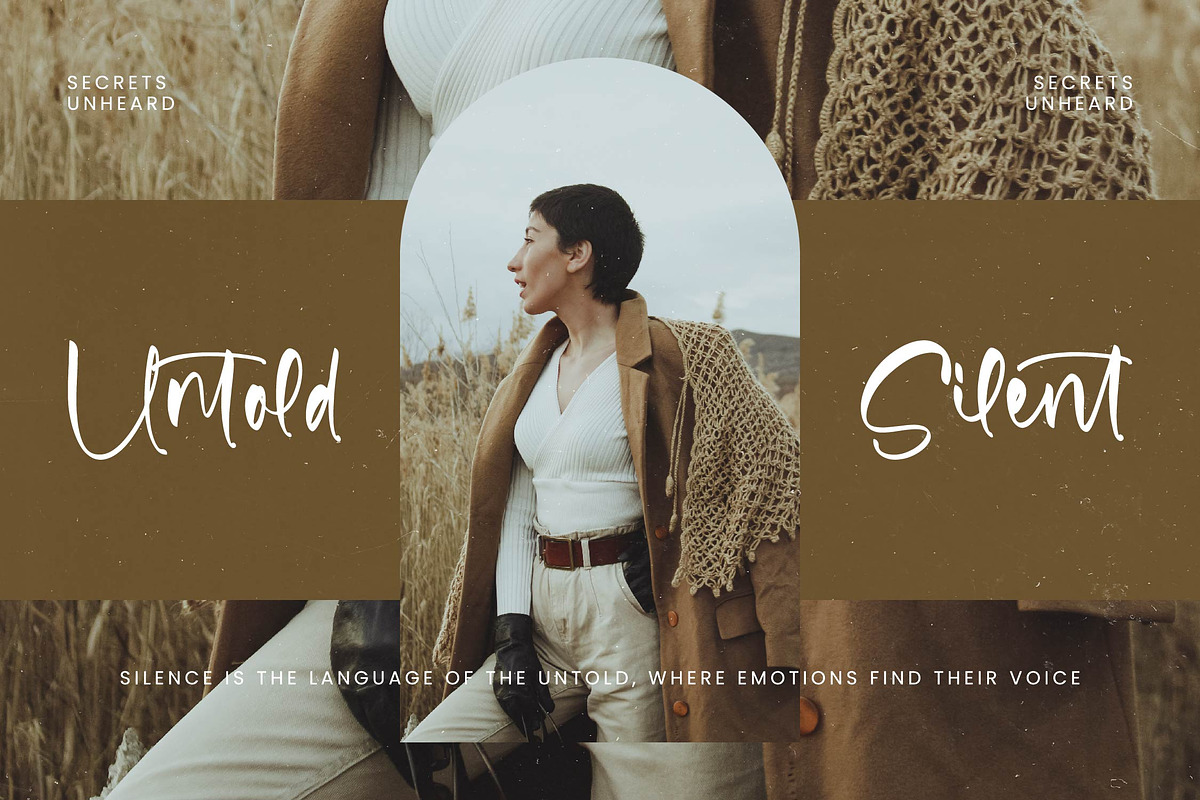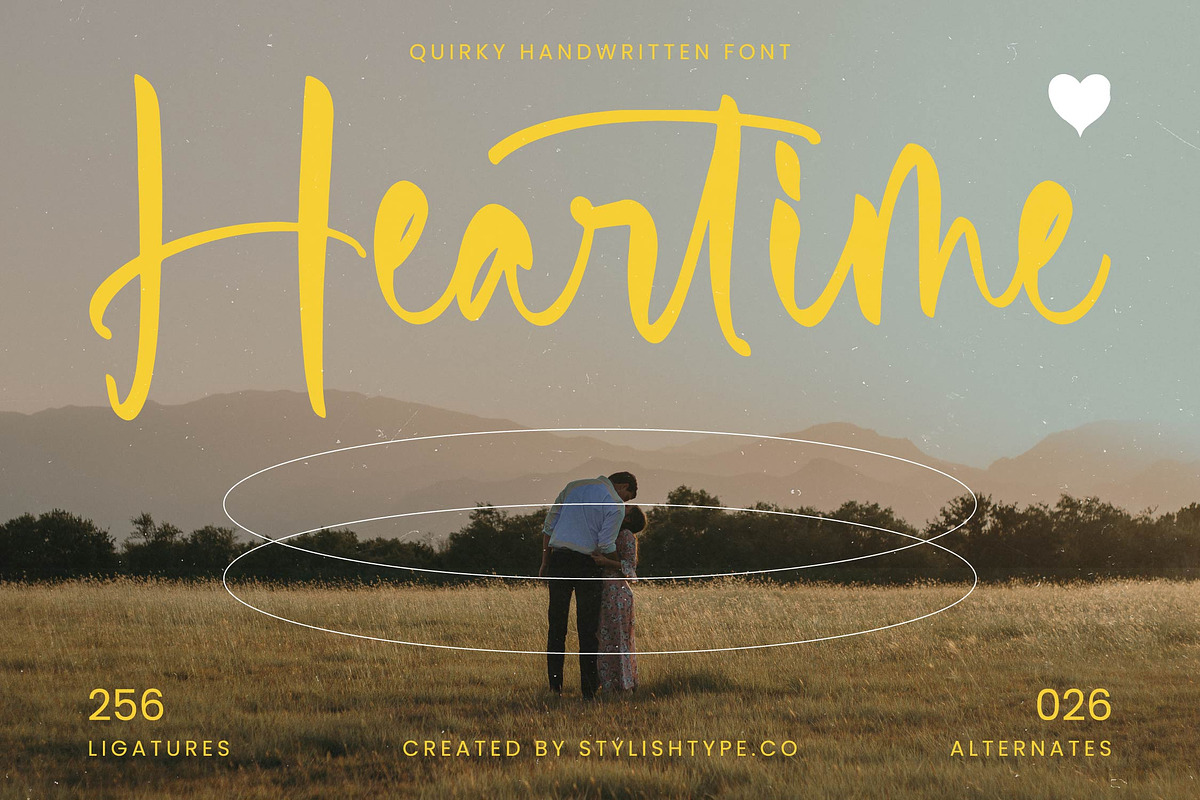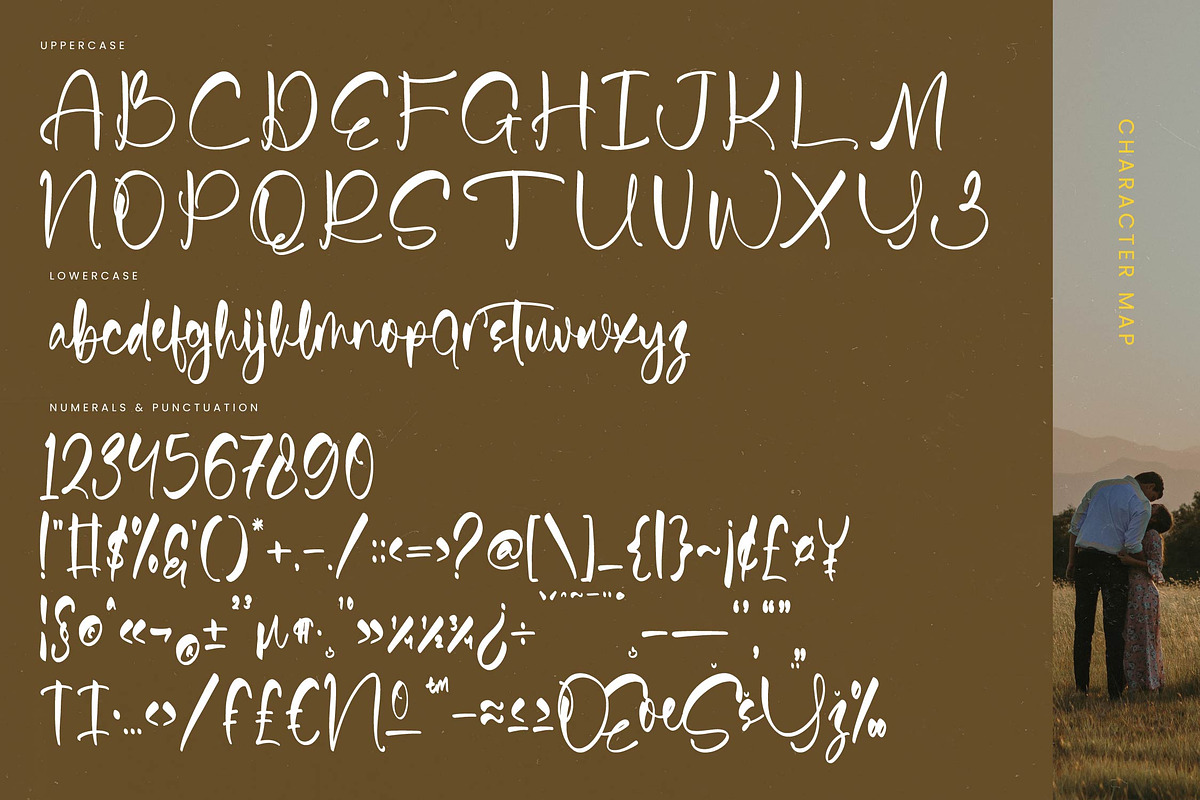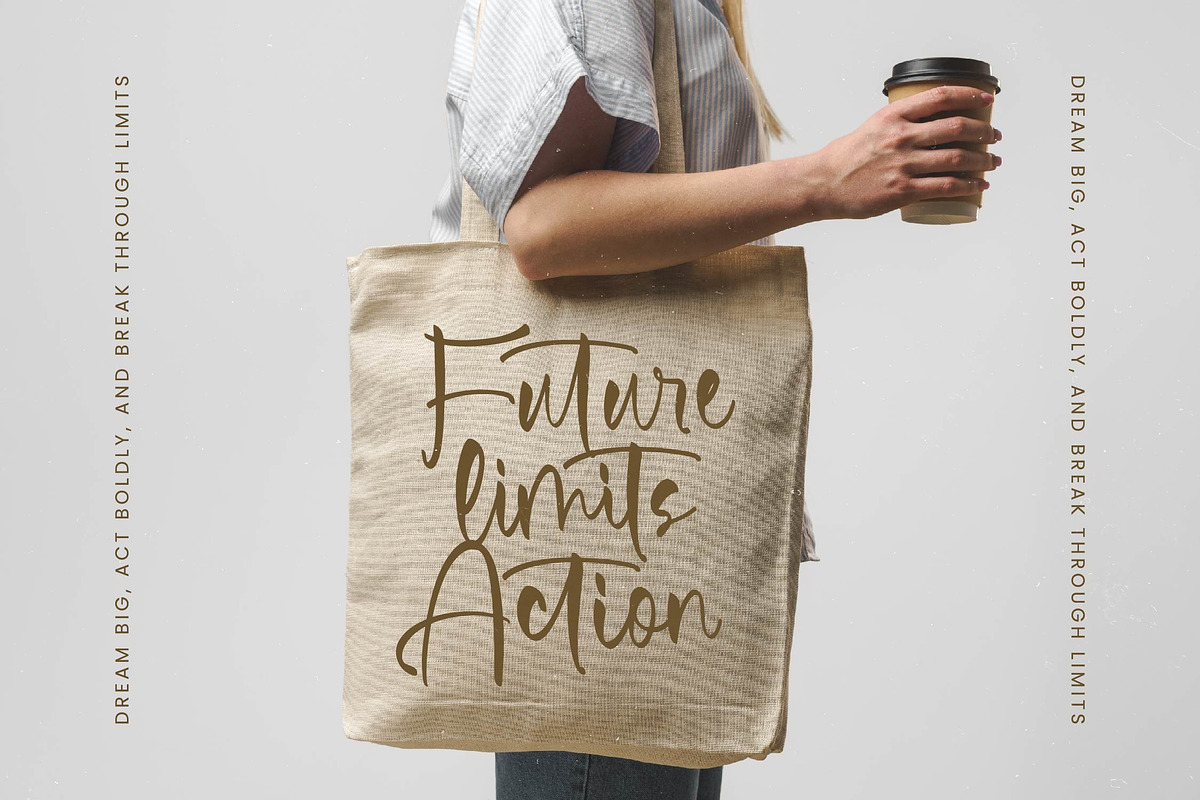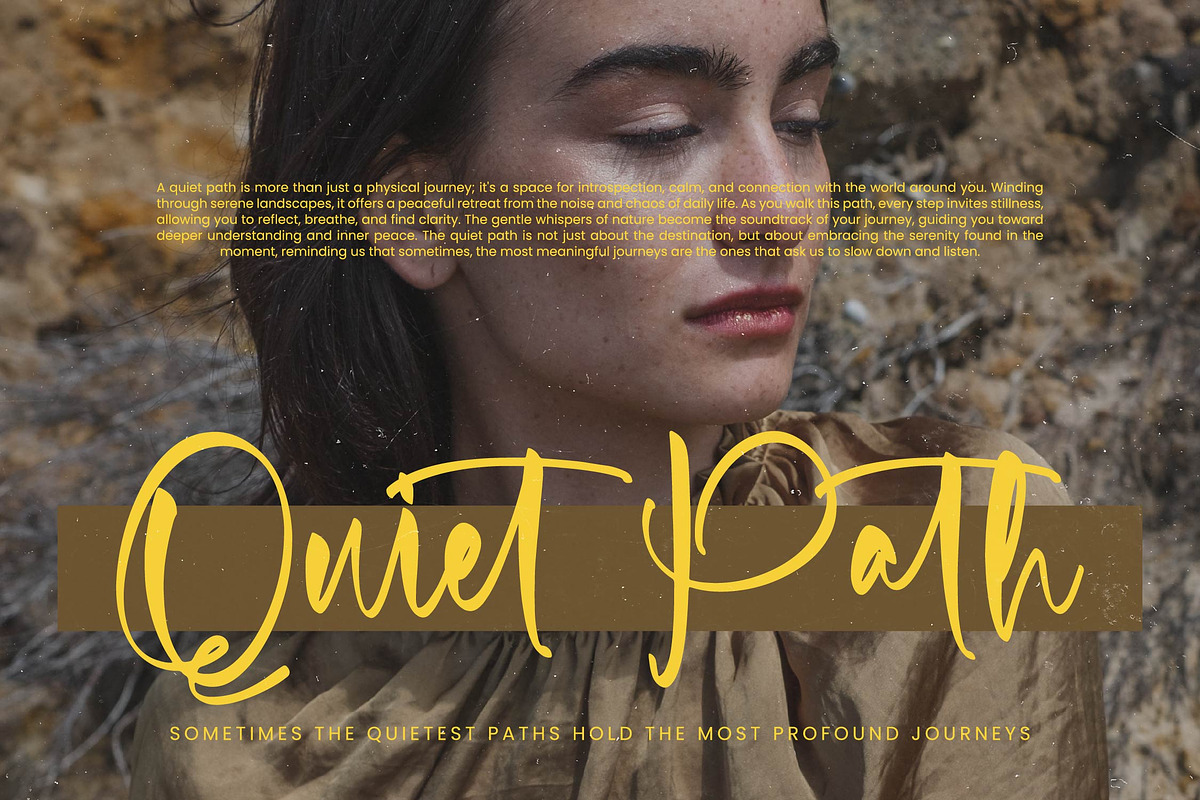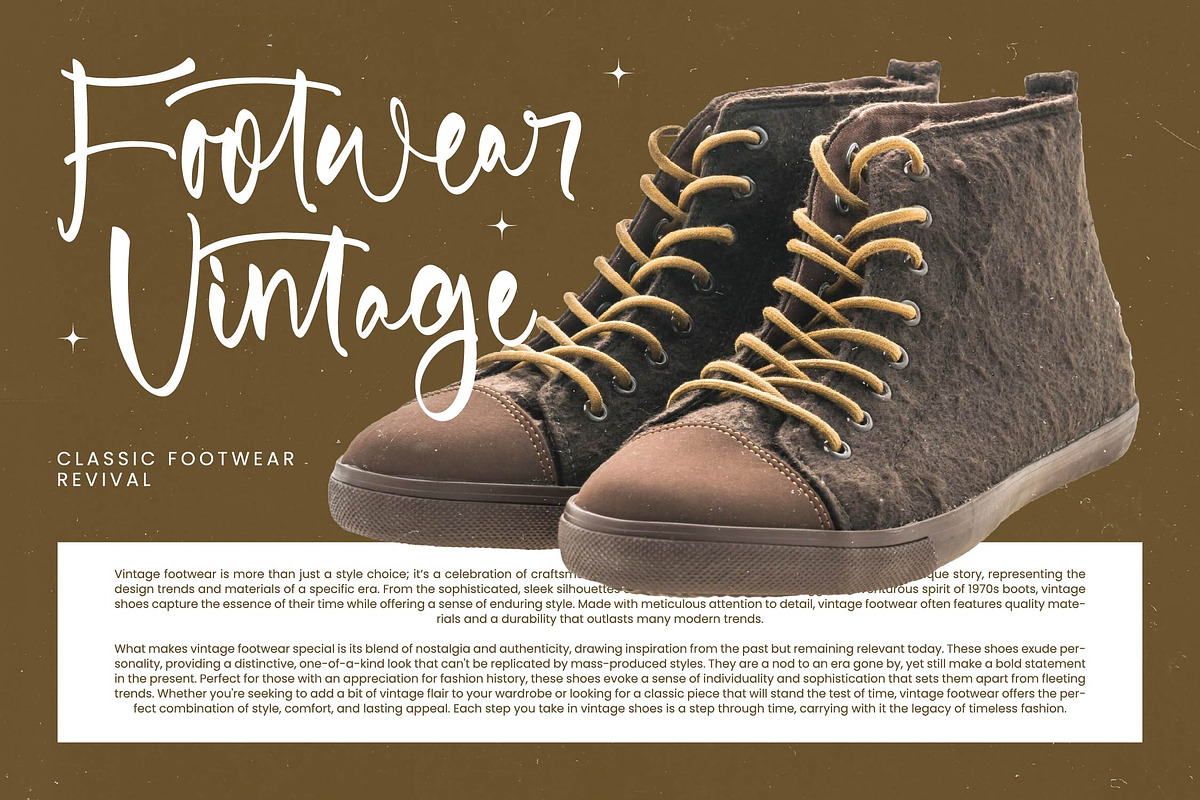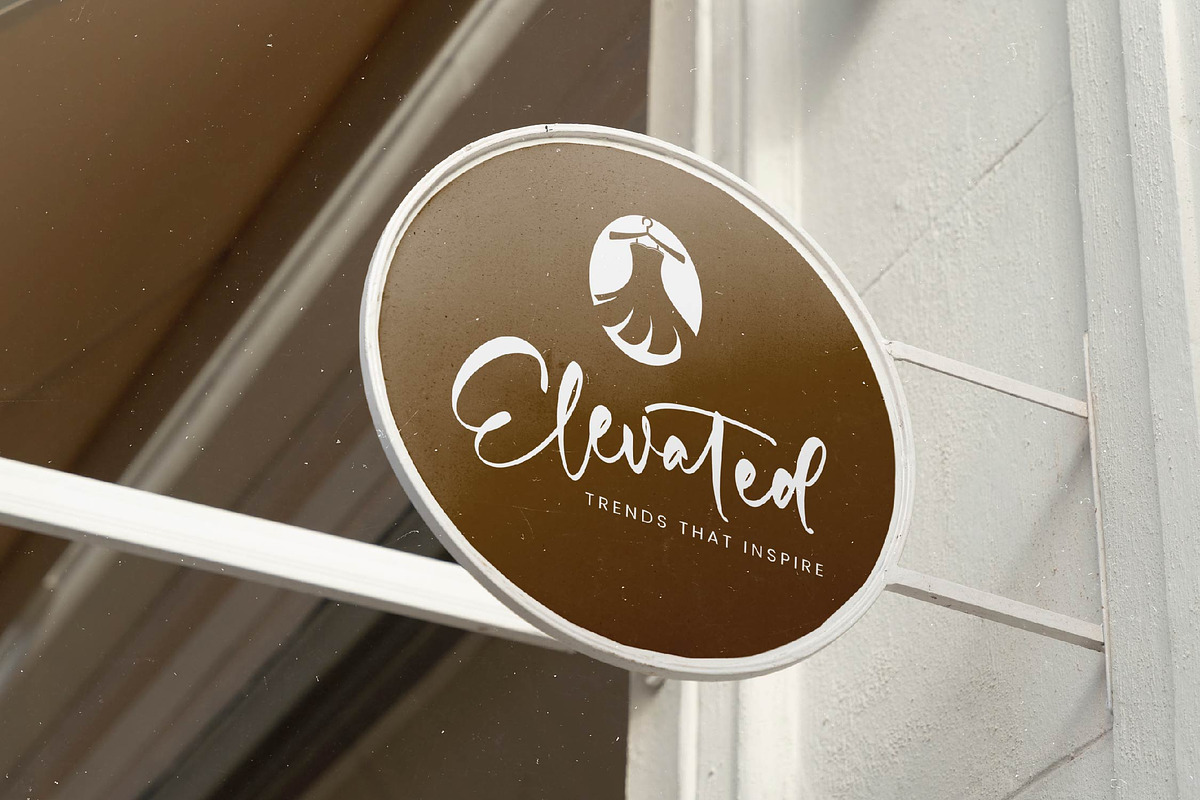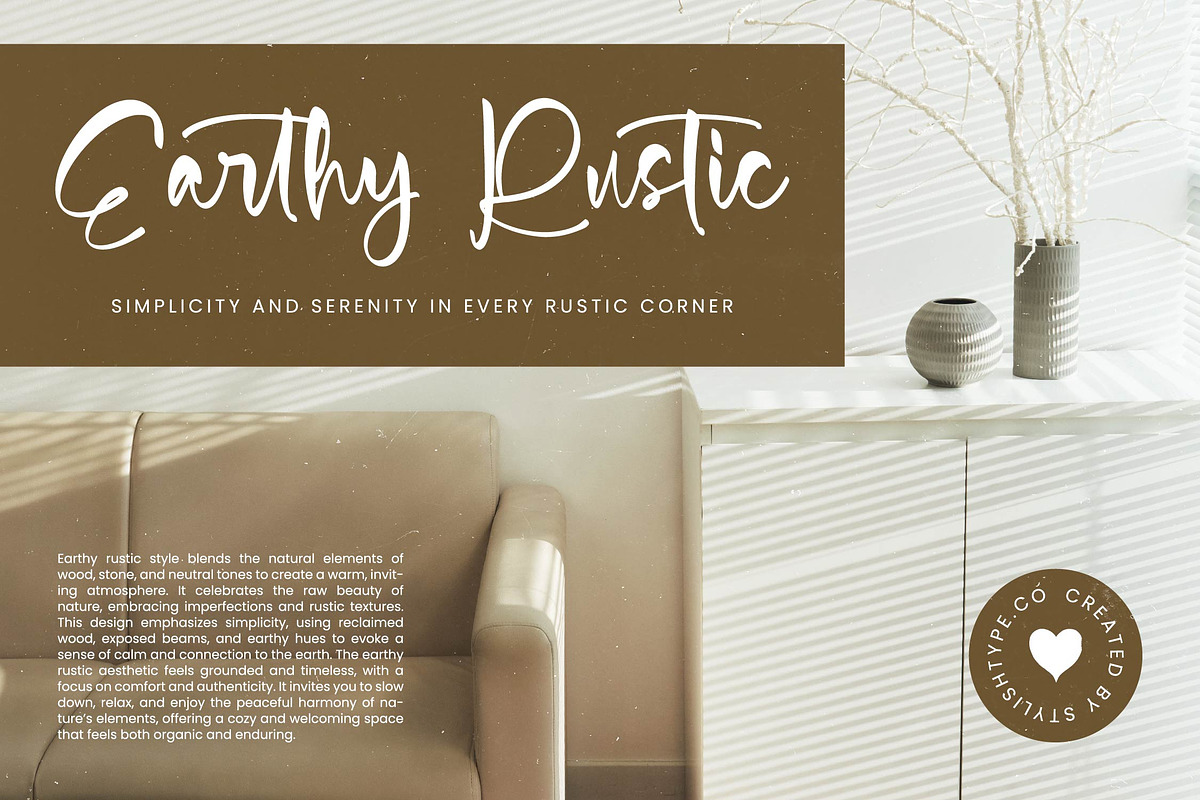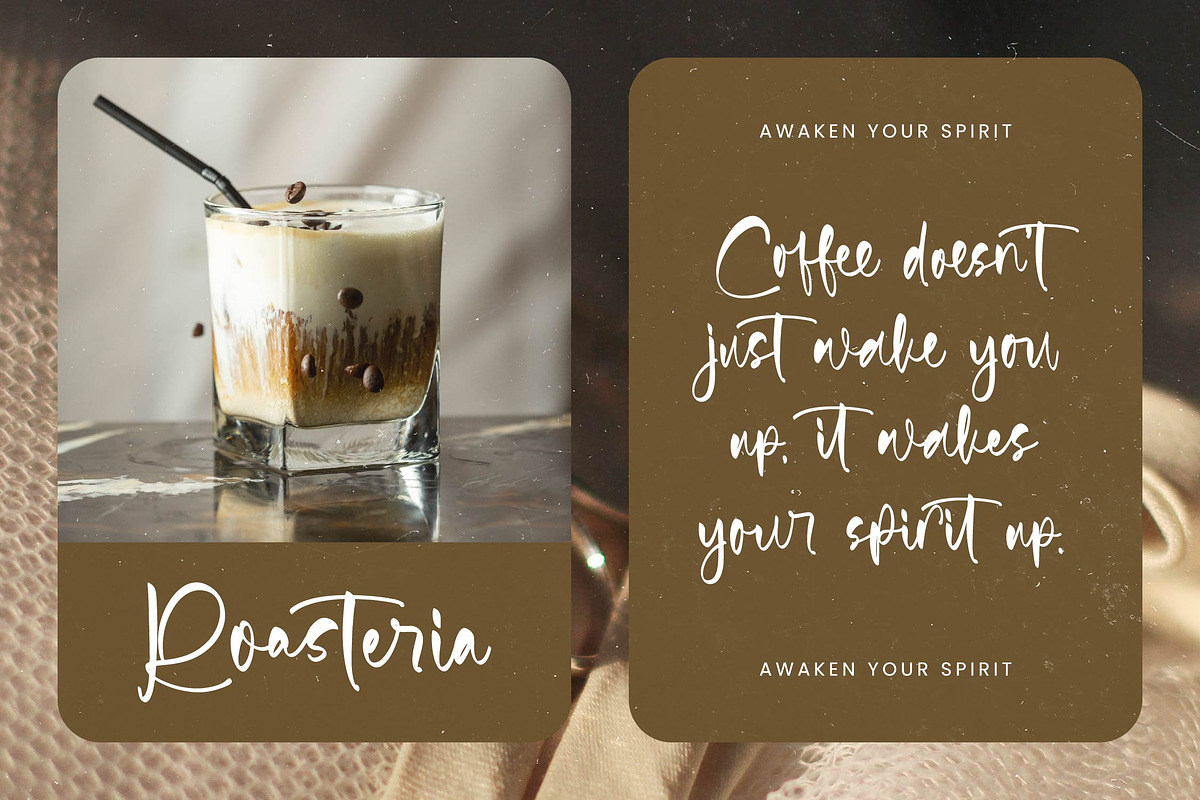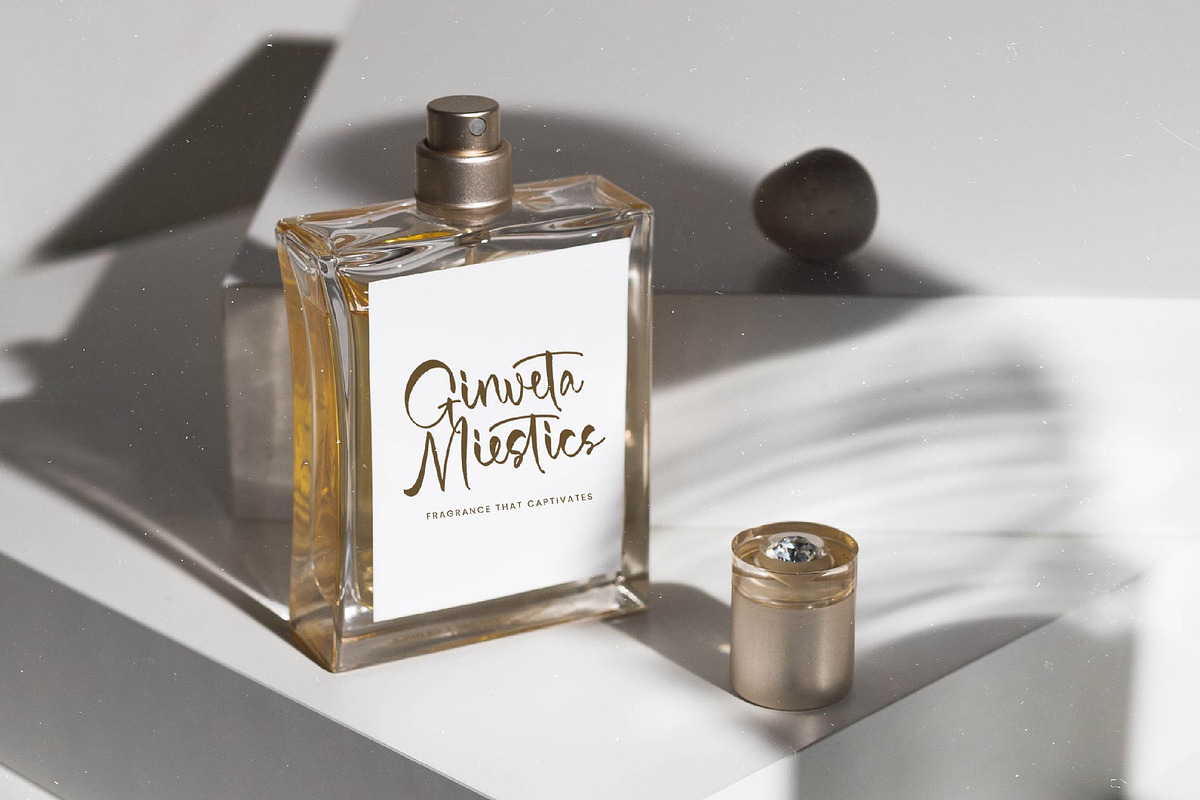
Heartime Quirky Handwritten Font
Heartime - Quirky Handwritten Font , from Stylishtype.Co , Suitable for any projects such as: logos, branding projects, homeware designs, product packaging, mugs, quotes, posters, shopping bags, t-shirts, book covers, name card, invitation cards, greeting cards, label, photography, watermark, special events, and all your other luxury and beautiful projects that need a Luxury Script taste.
- 256 Ligature 26 Alternates & Swashes